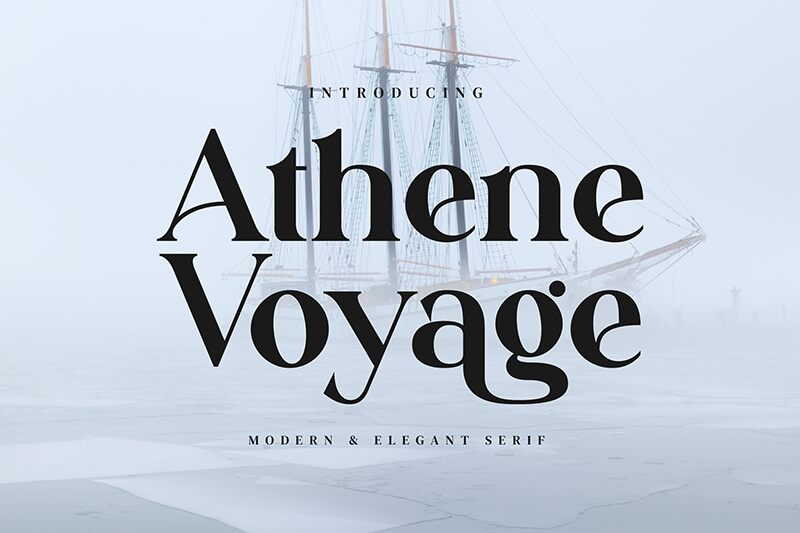
Athene Voyage
Athene Voyage font by Biham Santoso is a free serif font with a sophisticated appearance. Elegance reveals itself in even the smallest of details with this typeface that combines timelessness and versatility. Its magic lies within its classic feel, smooth designs, and traditional vibe – characteristics that are clear in every word typed using it.
Add elegance to your printed card invitations, magazine covers, branding project presentations for luxury items or cards for beauty salons and spas. Use Athene Voyage for book titles/ covers or movie titles/ posters or decorate websites where it can be used as part of the texts.